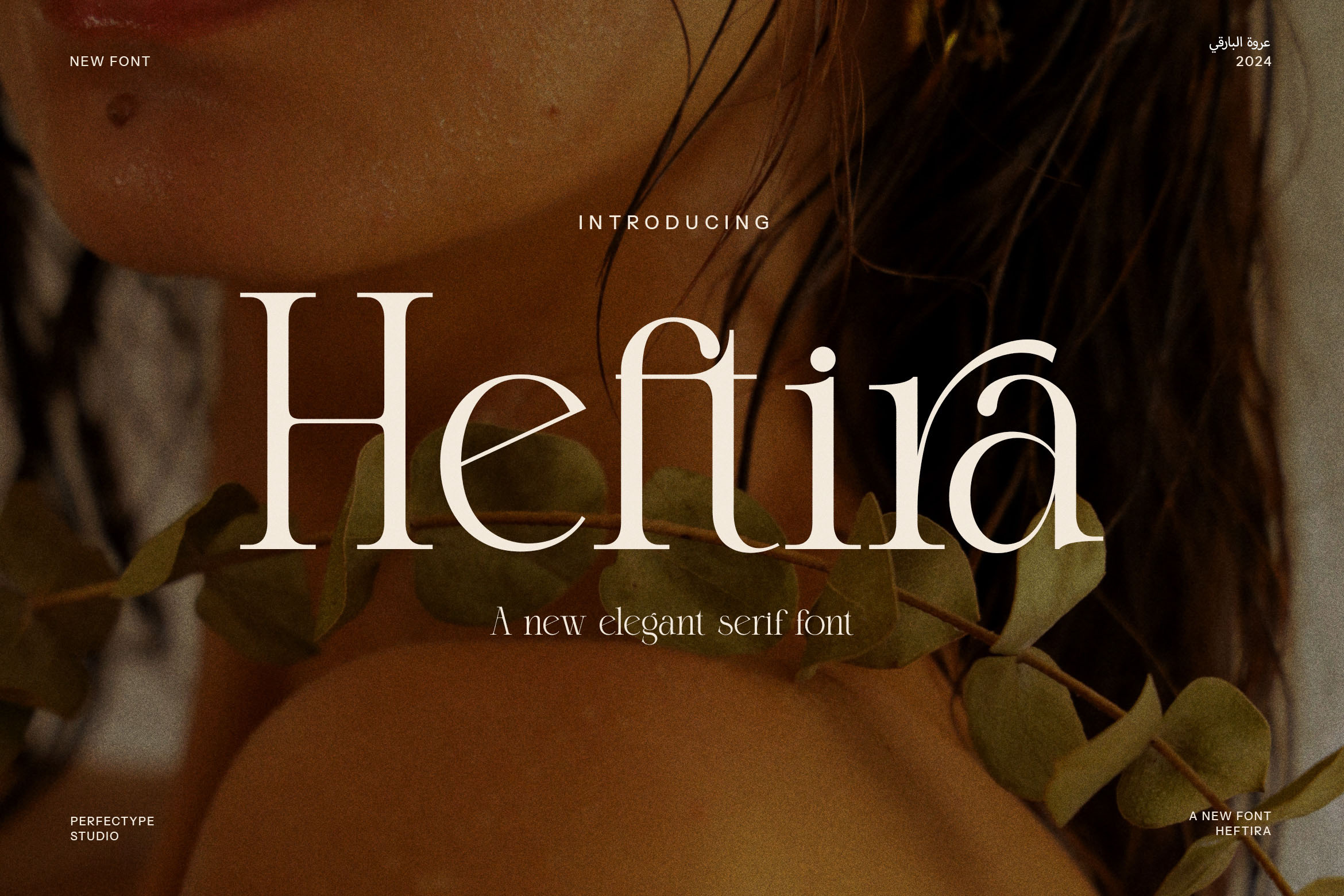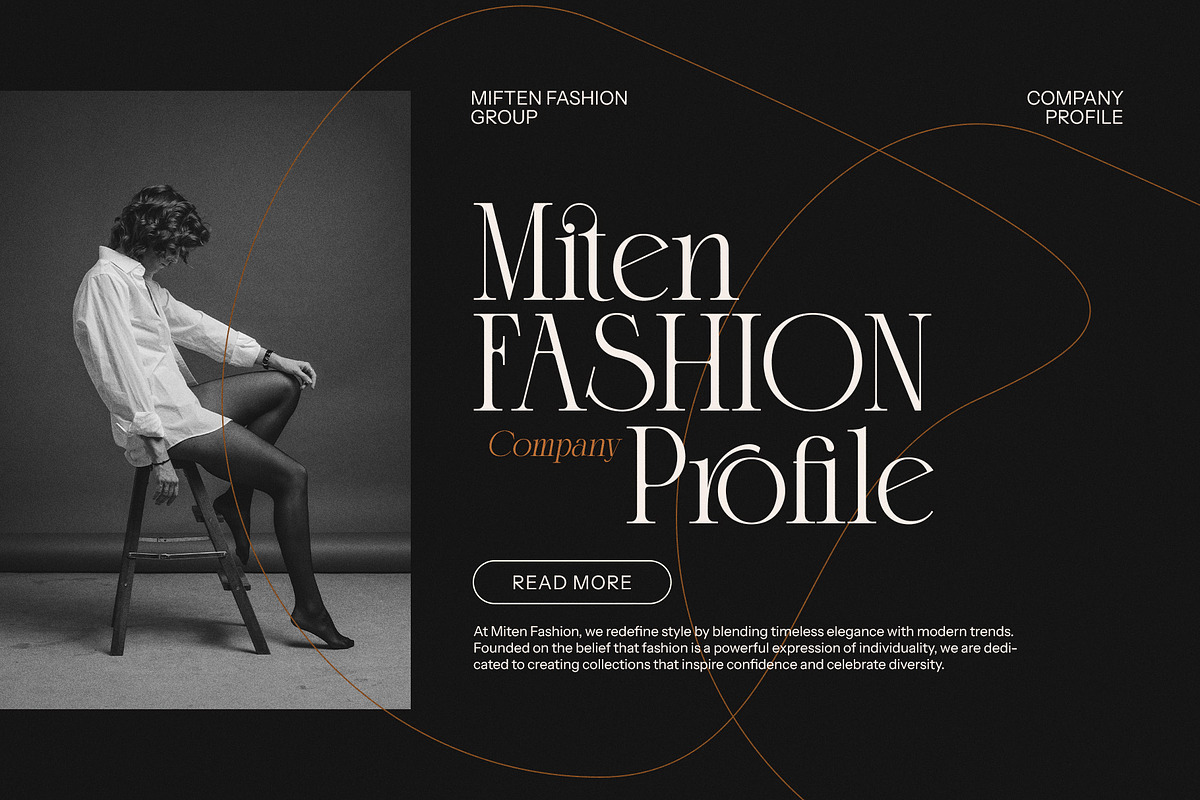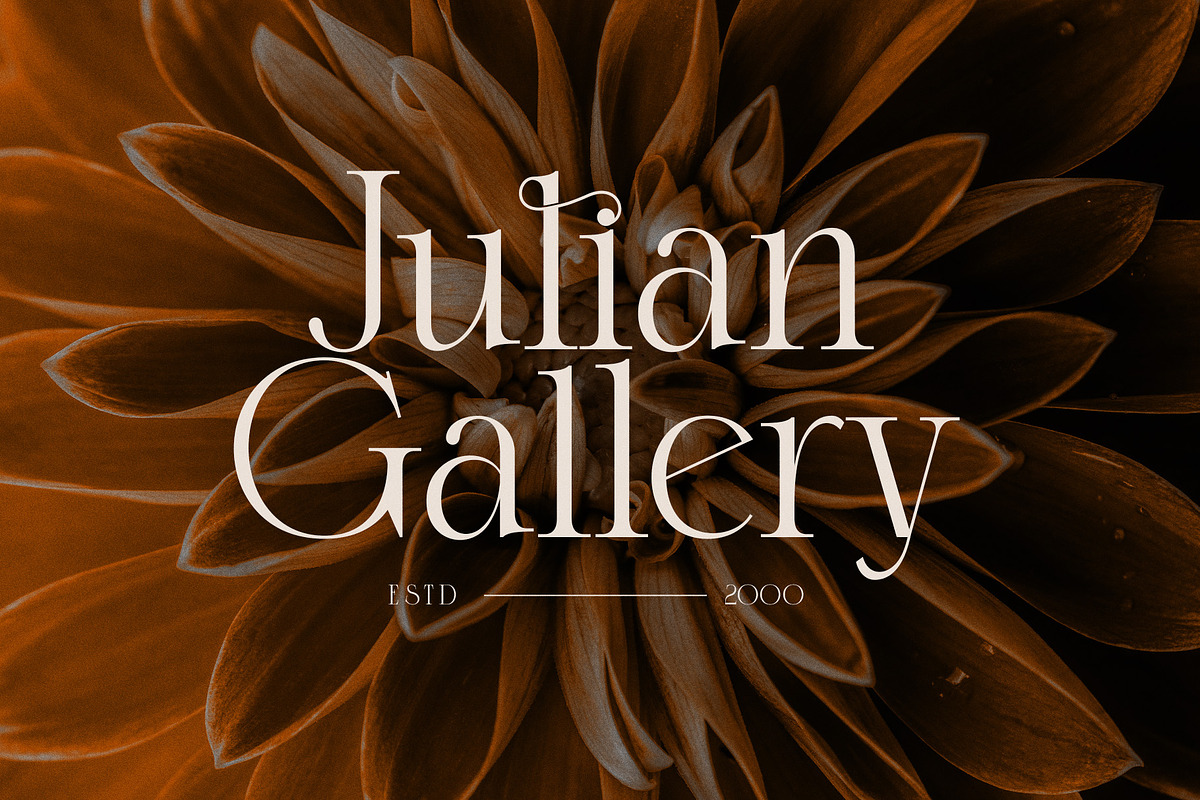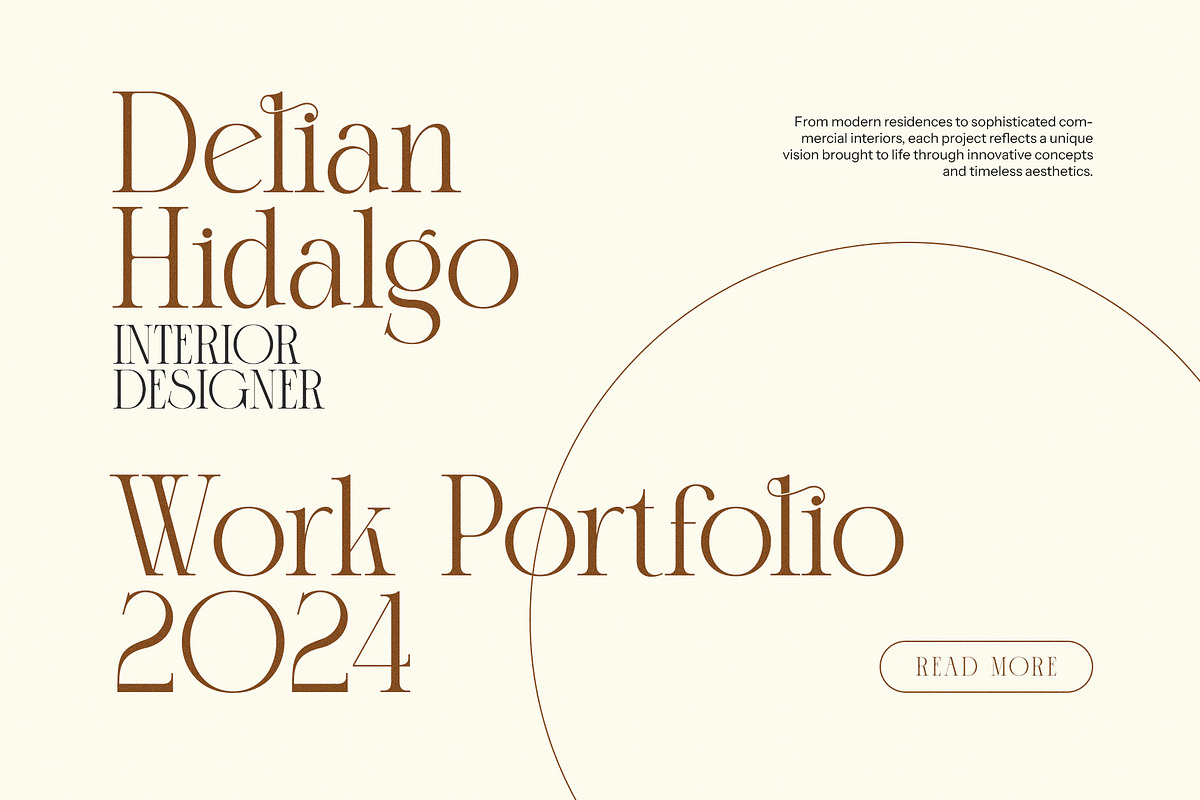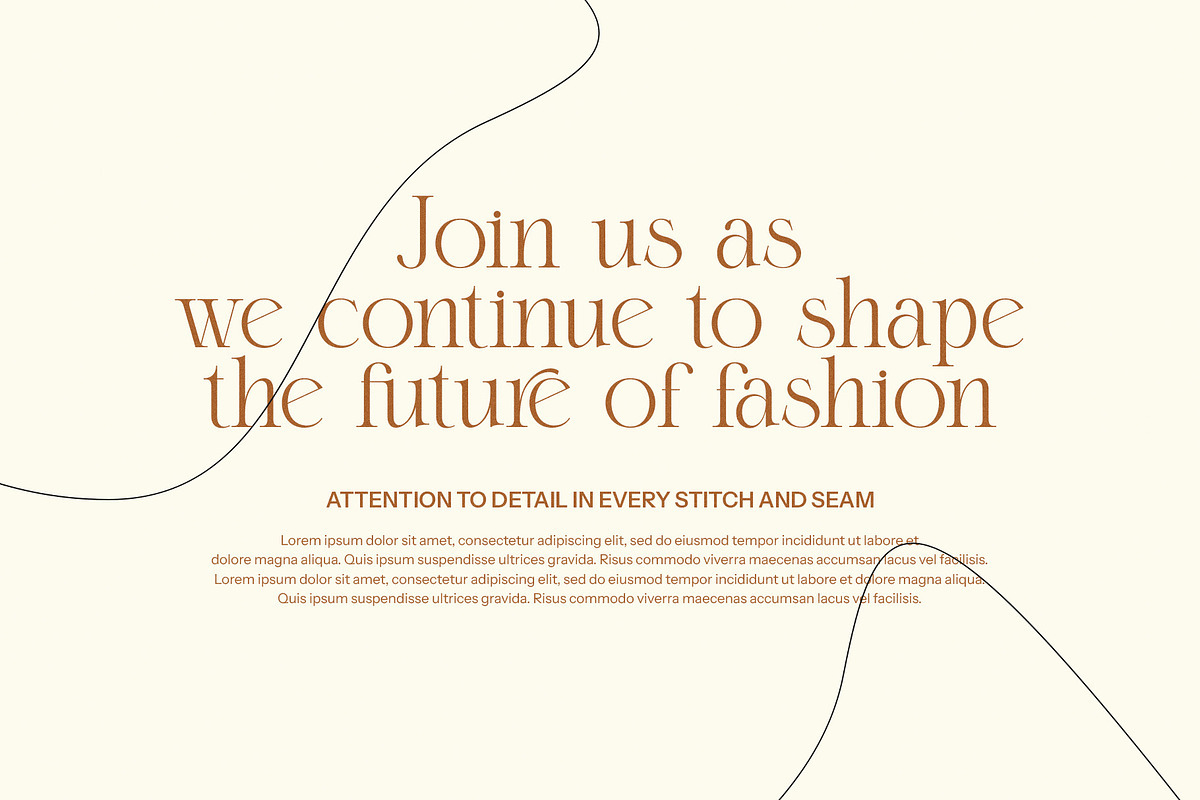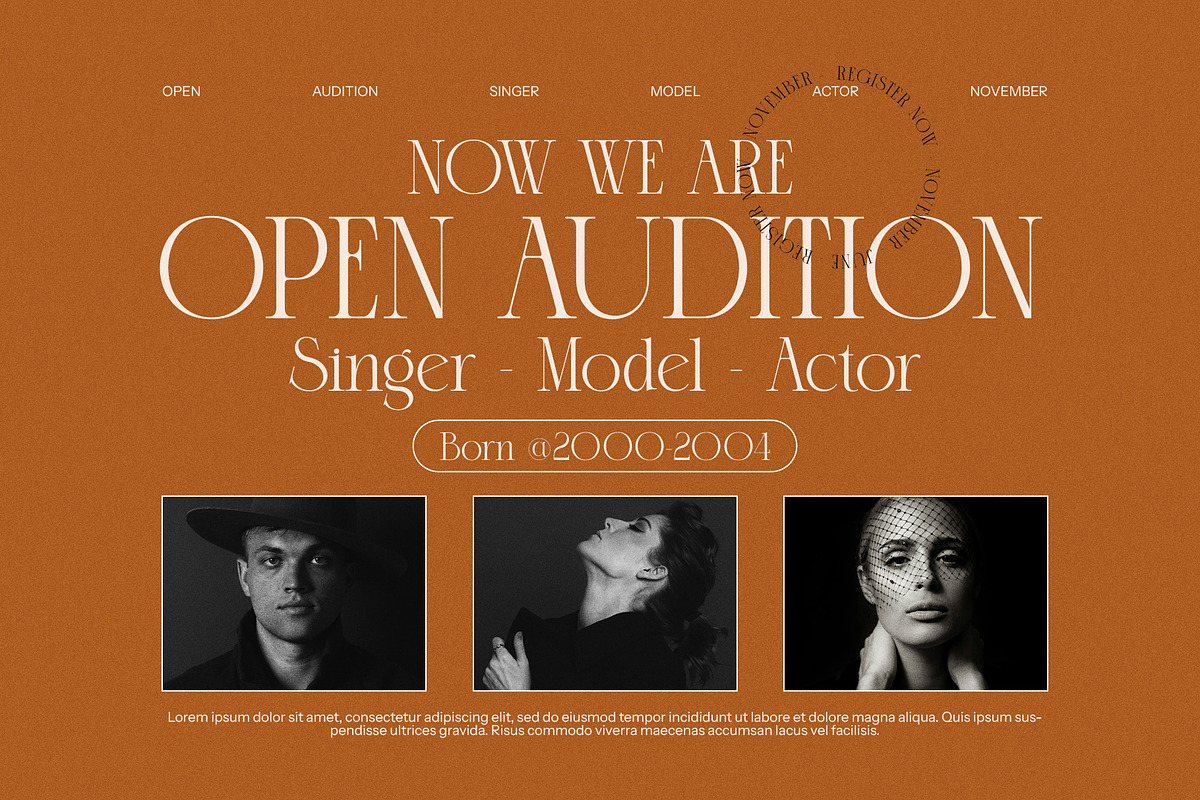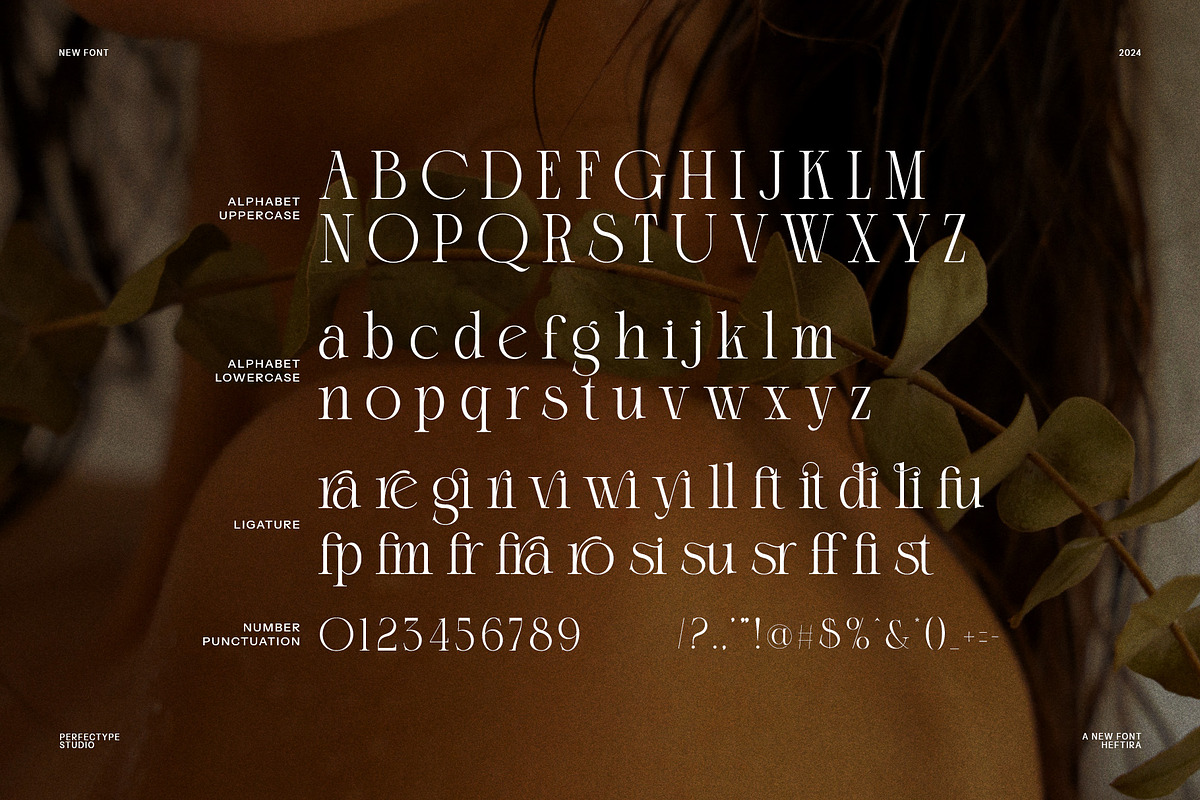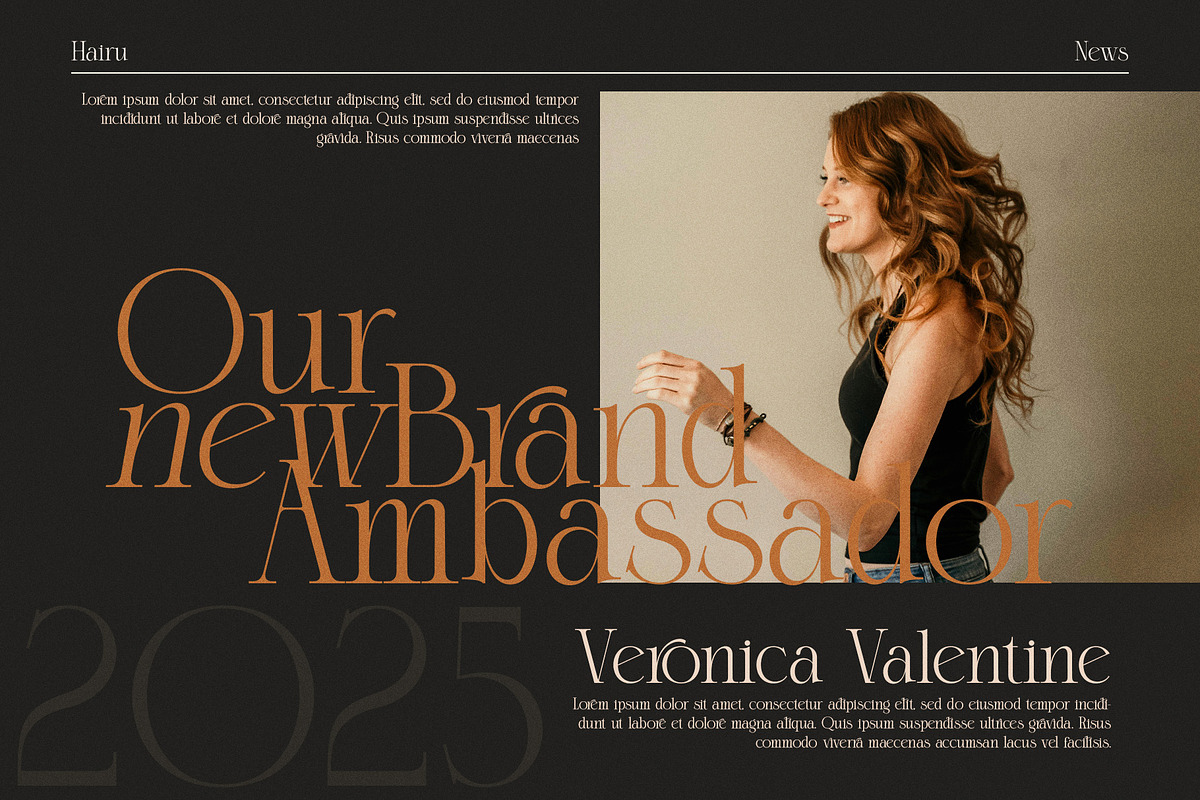
Heftira Modern Serif Font
Heftira Modern Serif Font is a stylish and sophisticated typeface that merges timeless serif elegance with a contemporary edge. Featuring carefully crafted ligatures and alternate characters, Heftira offers a unique visual appeal by seamlessly connecting several letters into beautiful, distinct shapes. This thoughtful design adds a creative flair, making it perfect for projects that require both class and originality.
Ideal for logos, branding, and high-end marketing materials, Heftira stands out in every application. Its refined appearance makes it a perfect choice for luxury brands, boutiques, and upscale products. Whether you’re designing websites, magazines, or promotional materials, Heftira’s modern yet elegant style ensures your content captures attention and communicates professionalism.
The font’s versatility shines in both print and digital mediums, making it an excellent choice for product packaging, food branding, and advertisements. Its unique ligatures lend a touch of artistry to any design, while its serif structure maintains readability and sophistication across all formats.
Heftira Modern Serif Font adds an extra layer of personality to any creative project. With its sleek, contemporary design and intricate letterforms, it works beautifully for editorial layouts, creative branding, and distinctive logos. The font’s combination of elegance and modernity ensures it will elevate your designs, making them stand out with style, clarity, and impact. Heftira is the ideal typeface for designers looking to add a touch of luxury and uniqueness to their work.